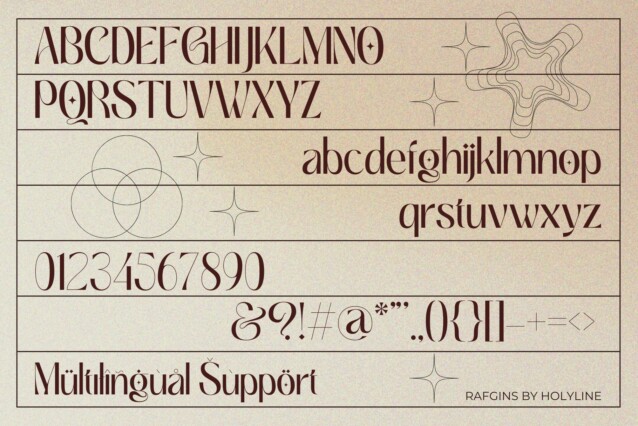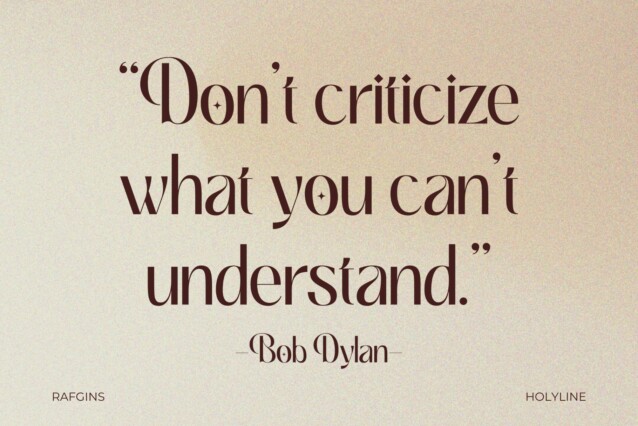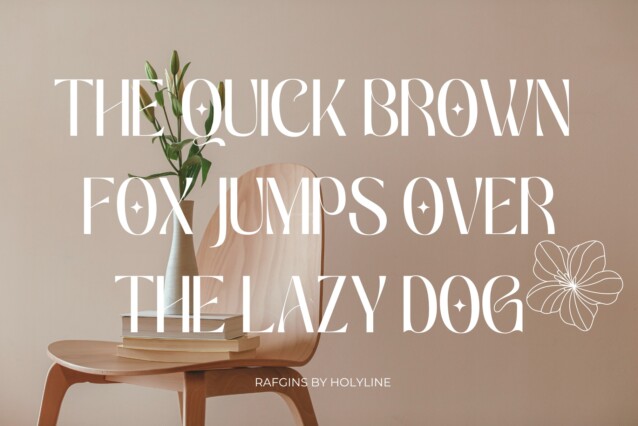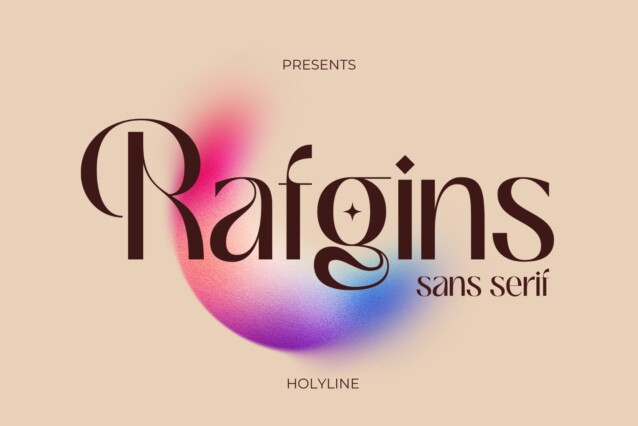
Rafgins Font
Rafgins Font is a modern serif font inspired by modern expressive imagination, which is realized in classy and unique strokes. Its clean, minimalist lines and sleek, contemporary style create a sense of understated elegance that is perfect for adding a touch of professionalism to your branding or typography. With its refined and versatile design, this font is sure to impress and inspire. Rafgins have alternate on B, D, P and R. Rafgins perfect for headline, logo, or anything your creativity and want something new with your project. Happy creating with Rafgins by Holyline.